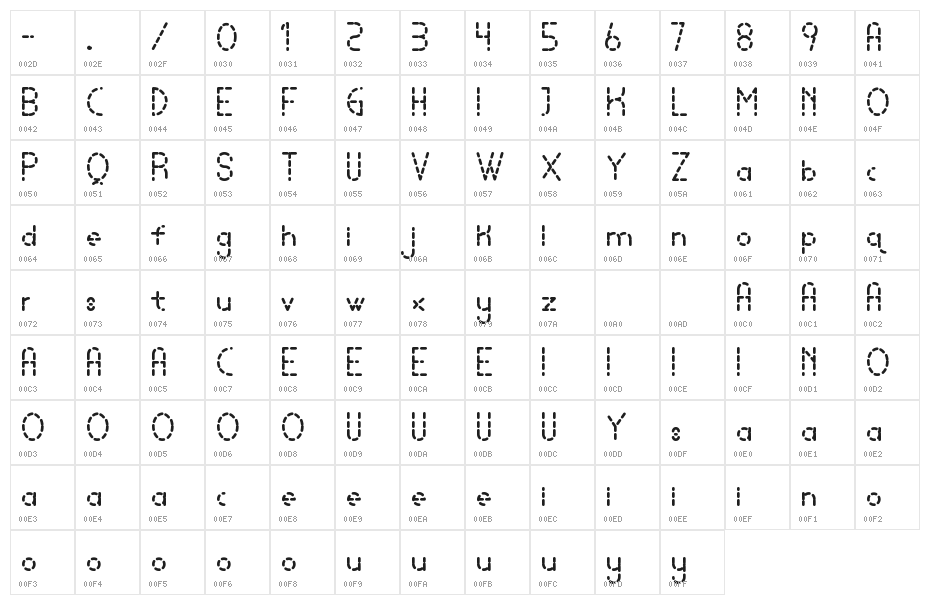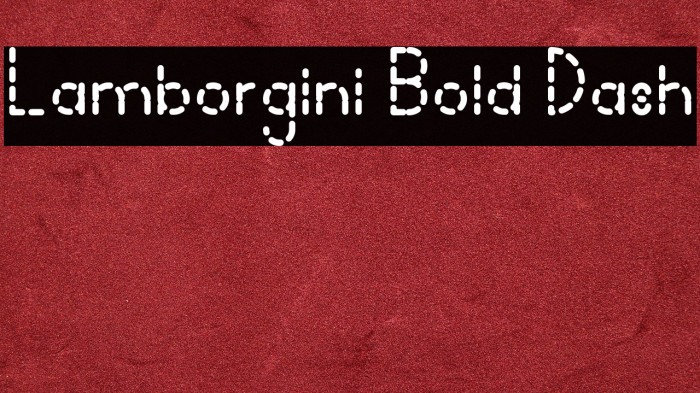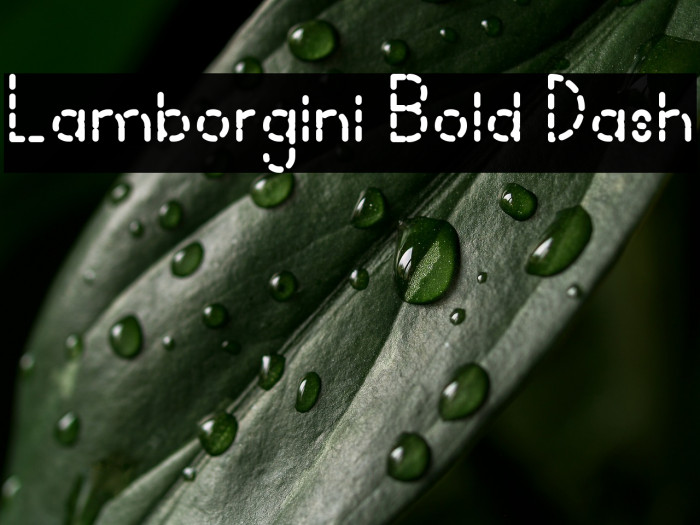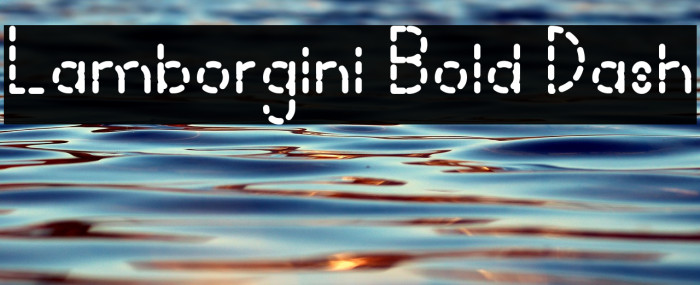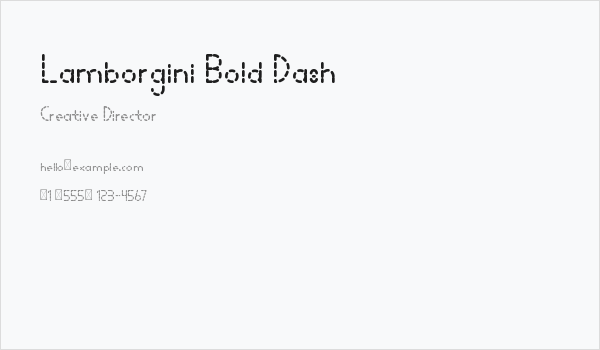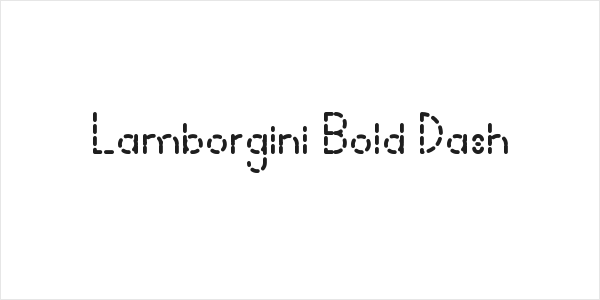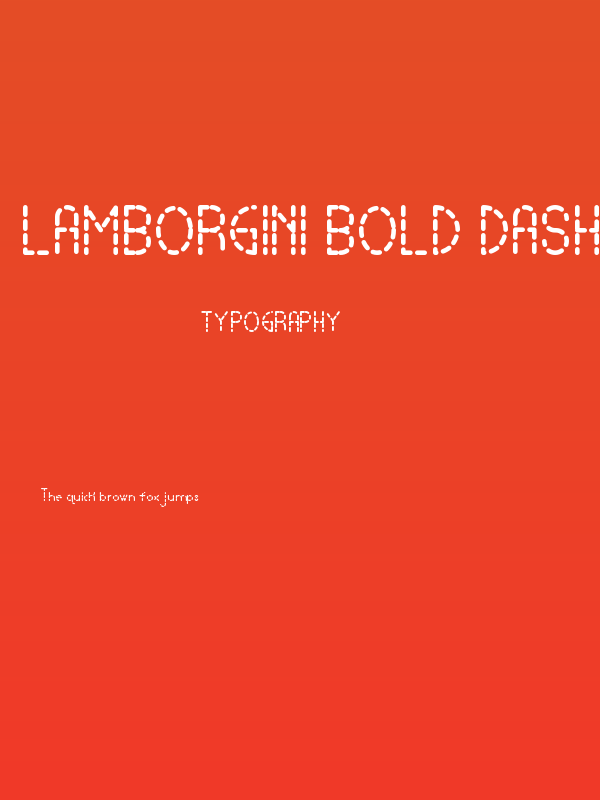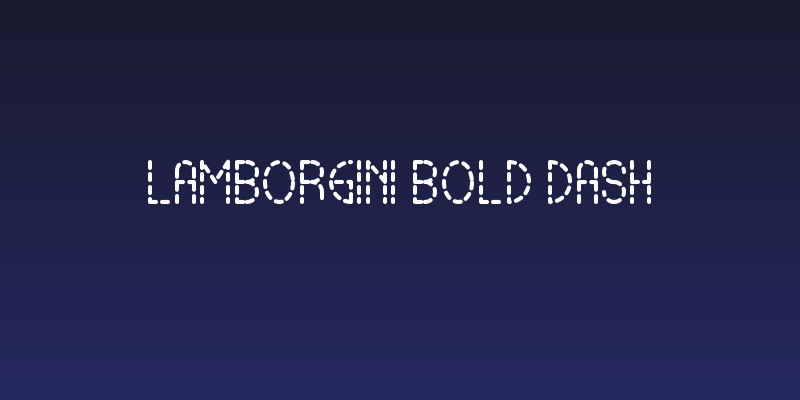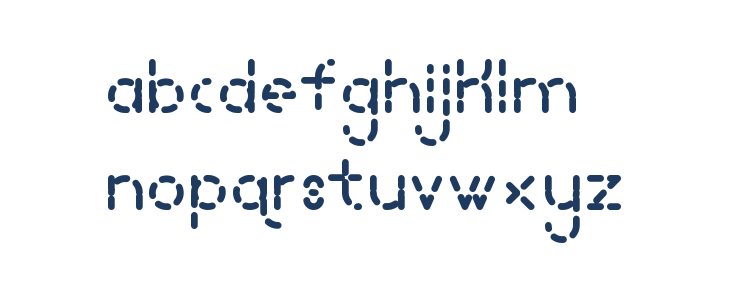
Lamborgini Bold Dash Font
Lamborgini Bold Dash Description
This font features a distinctive dashed design, where each character is composed of segmented lines, creating a unique and modern appearance. The uppercase and lowercase letters maintain a consistent style, with rounded edges and uniform dash lengths that give a cohesive look. The numerals and special characters follow the same dashed pattern, ensuring visual harmony across all elements. This font's playful yet structured design makes it suitable for creative projects that require a touch of modernity and uniqueness. The spacing between characters is balanced, allowing for readability while maintaining its decorative appeal.
| Proposed Projects | Ideal for digital designs, creative posters, children's books, and branding that requires a playful yet modern touch. |